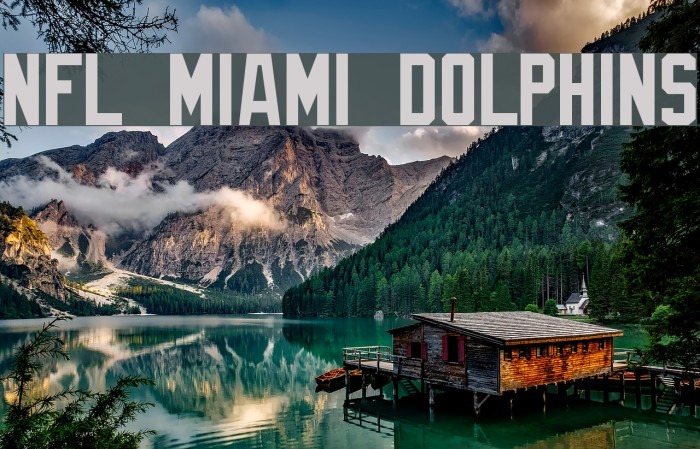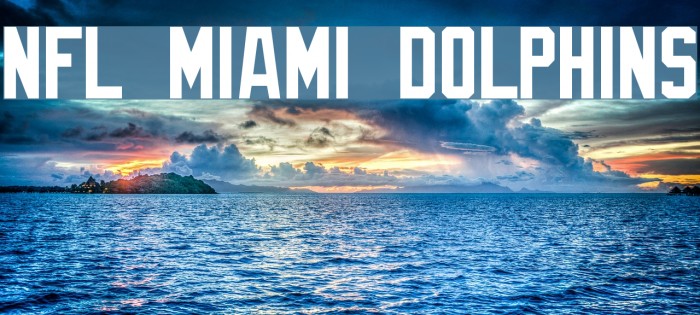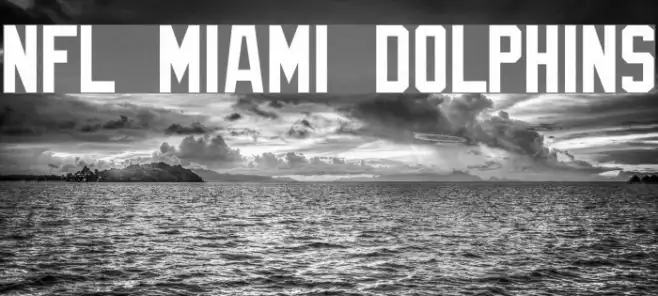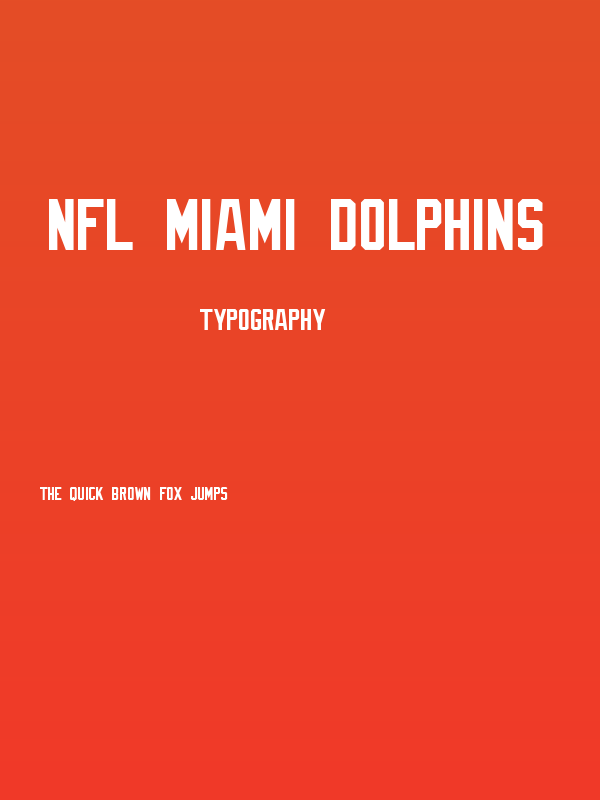
NFL Miami Dolphins Font
NFL Miami Dolphins Description
This font features a bold, geometric style with strong, angular lines and a modern aesthetic. The characters are uniformly thick, giving a sense of strength and stability. The uppercase letters are particularly striking, with sharp edges and a blocky appearance that commands attention. The numbers follow the same design principles, ensuring consistency throughout. This font is ideal for projects that require a bold statement, such as sports branding or team merchandise. Its clean lines and robust form make it versatile for various design applications.
| Proposed Projects | Ideal for sports branding, team merchandise, posters, and bold headlines. |